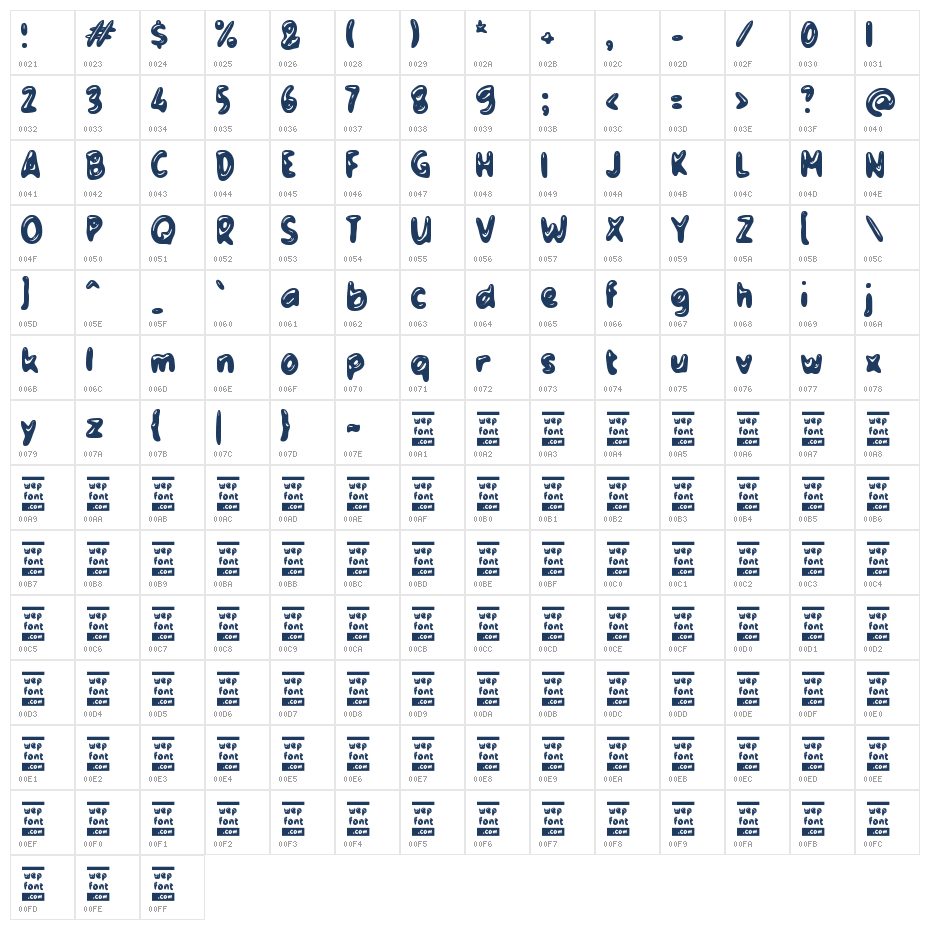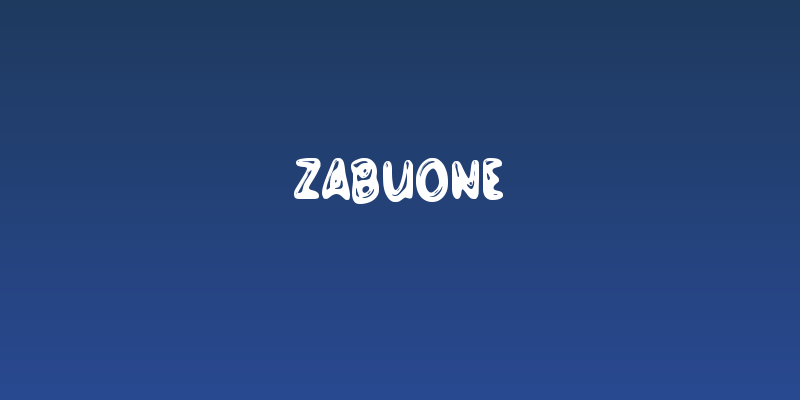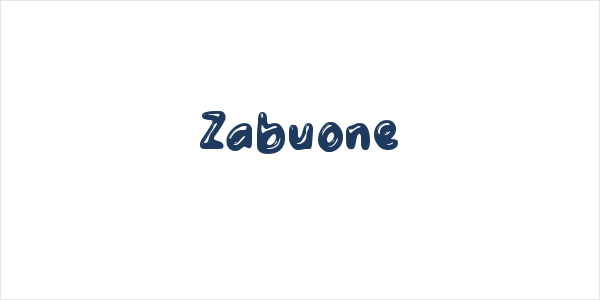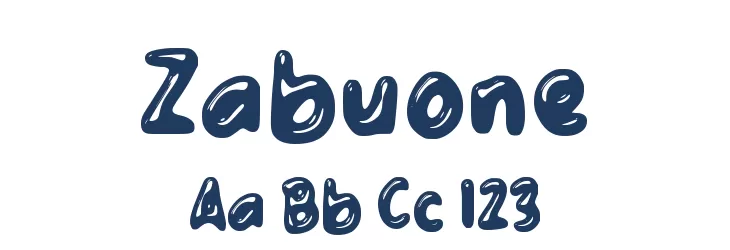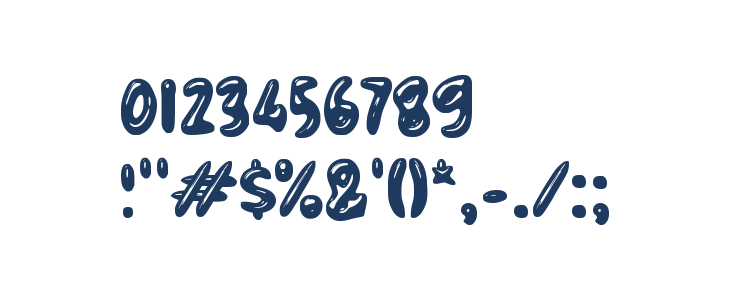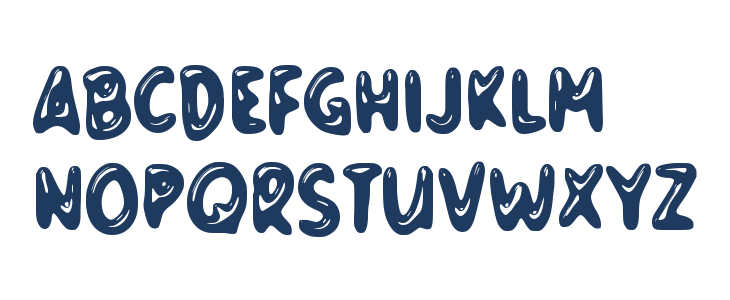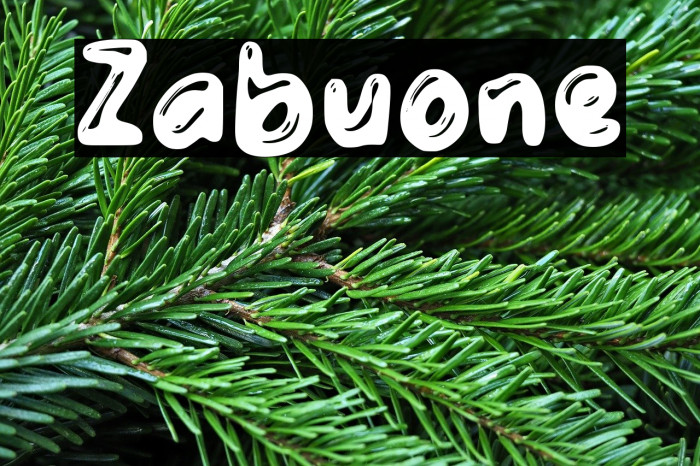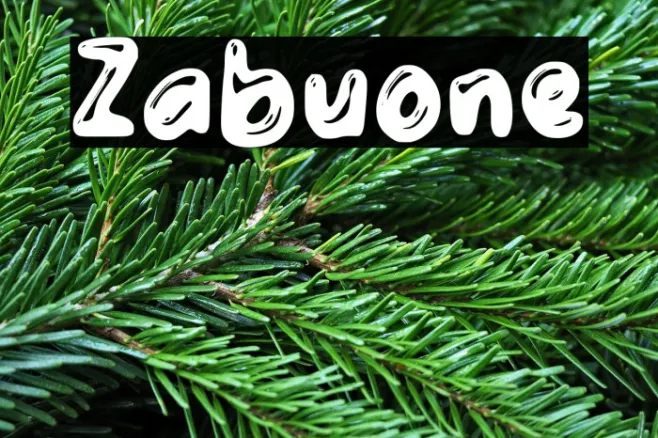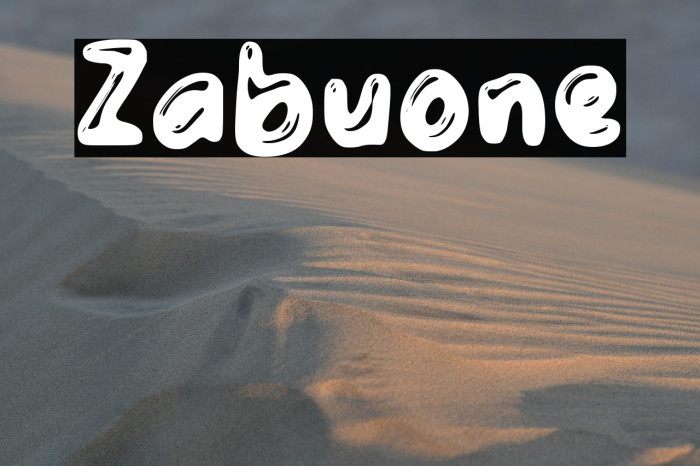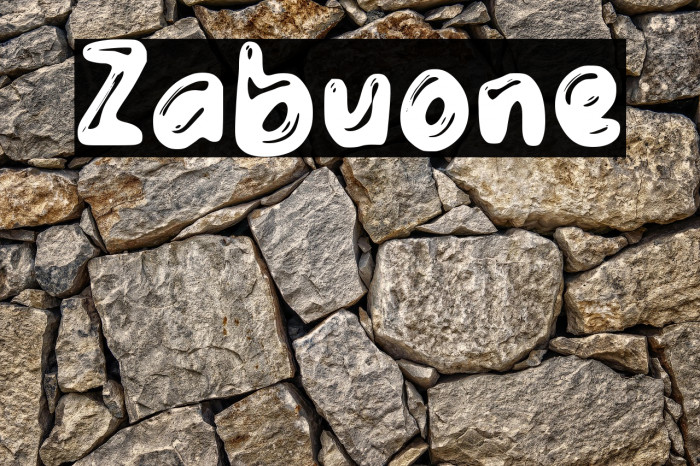
Zabuone Font
Zabuone Description
Playful, bubbly, and cartoonish font with a hand-drawn appearance, featuring irregular shapes and a casual style.
| Overall Style | Playful, Casual, Cartoonish |
| Use Case | Headlines, Children's content, Logos, Invitations |